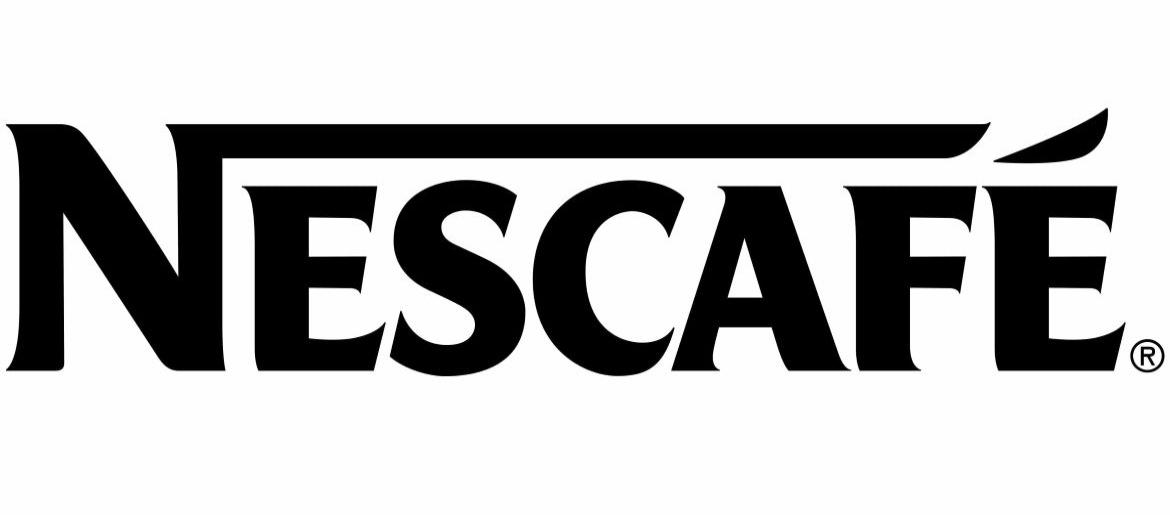
Nescafe Font
What Font is Nescafe?
The Nescafe Font used in the brand’s logo appears to be a custom-designed typeface tailored specifically for the word-mark. If you’re looking for a close match, the premium font Friz Quadrata Pro Bold aligns very well with its distinctive serif styling. For designers on a budget, there’s also a free alternative font that mimics the same clean and strong character of the original logo.
About Nescafe
Nescafé is a globally recognized instant coffee brand founded by Nestlé in 1938. The name combines “Nestlé” and “café,” and the logo emphasizes a modern, approachable feel with bold letterforms and a sleek accent over the letter “É” that adds a subtle touch of steam-like imagery. The typography supports the brand’s promise of quality and a rich coffee experience.